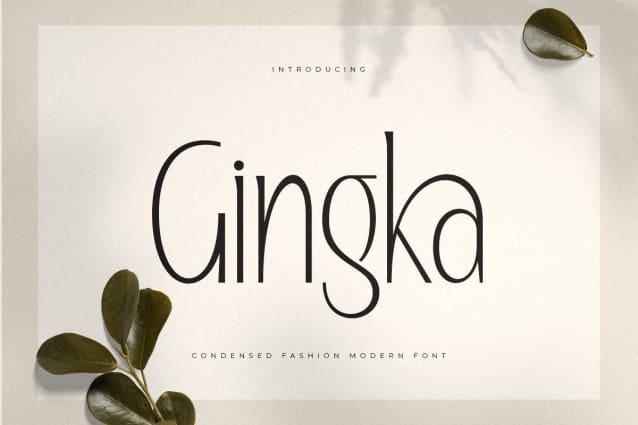
Gingka Font
Gingka Font – A modern serif font that we created especially for elegant branding needs, with additional unique shape alternatives, will be ready to add value to your brand. It’s so nice to call on a designer or product owner who needs solutions to make their design more sleek and modern. And especially for Gingka font, we have prepared all alternative characters to help you create unlimited variations for your creative needs.